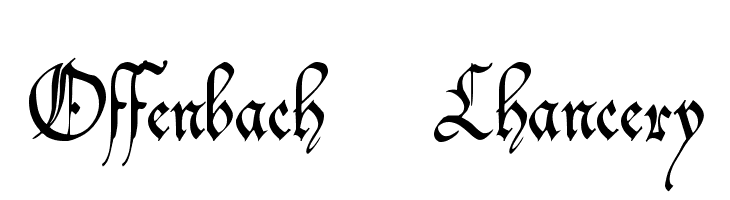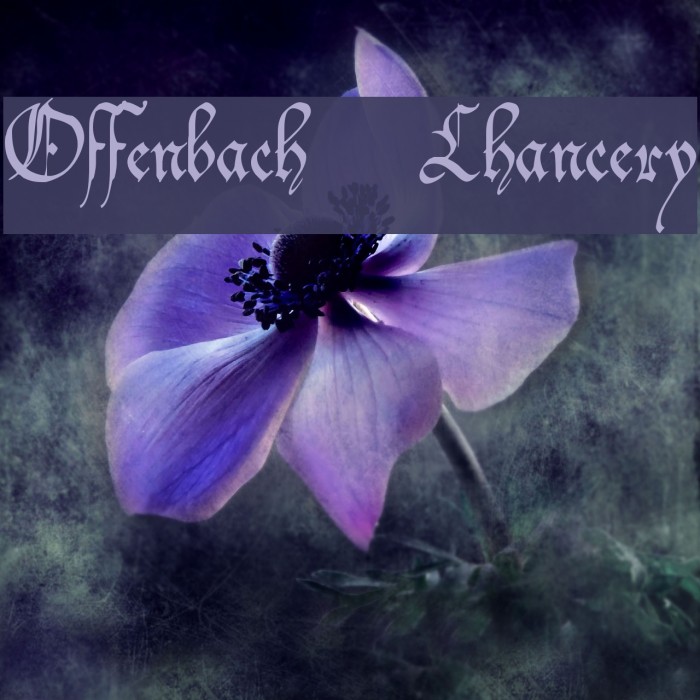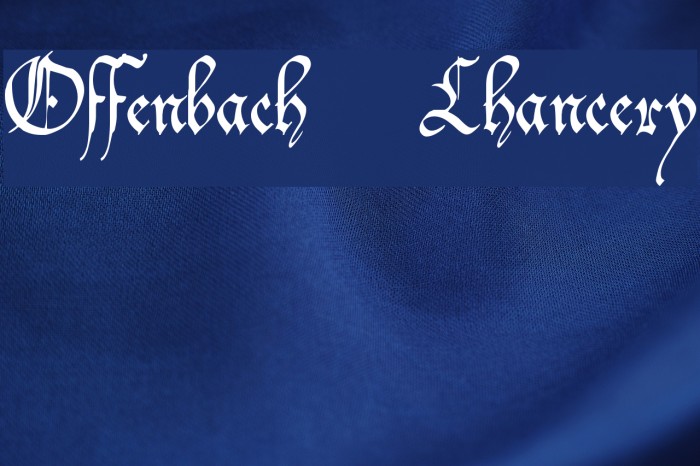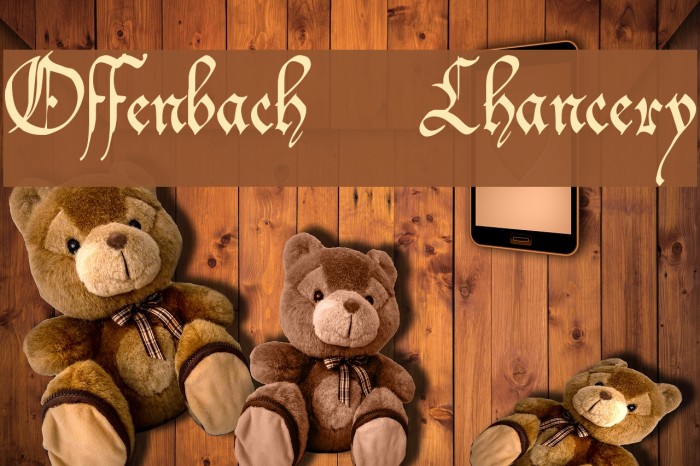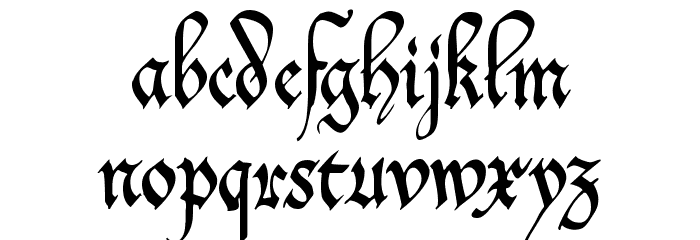
Offenbach Chancery Font
Offenbach Chancery Description
This font exudes a classic and ornate style, reminiscent of traditional calligraphy with its intricate and flowing letterforms. Each character is adorned with elaborate flourishes and sharp serifs, creating a sense of elegance and historical charm. The uppercase letters are particularly decorative, featuring dramatic curves and pointed edges, while the lowercase letters maintain a consistent style with slightly less embellishment. The overall appearance is both sophisticated and bold, making it suitable for projects that require a touch of old-world sophistication.
| Overall Style | Classic |
| Proposed Projects | Ideal for wedding invitations, certificates, historical documents, and branding that requires a vintage or classic touch. |